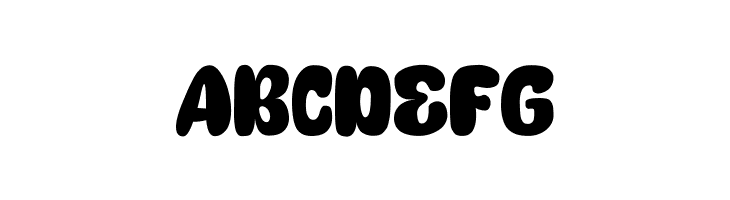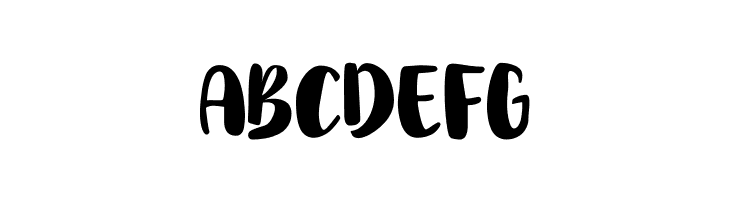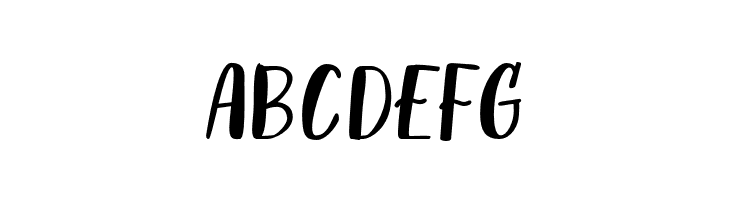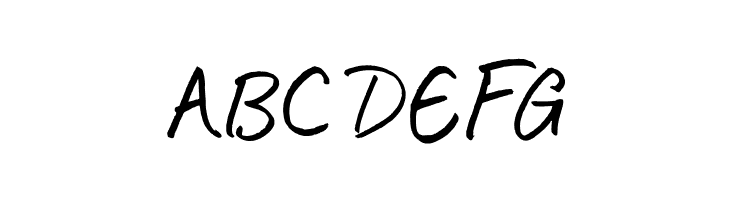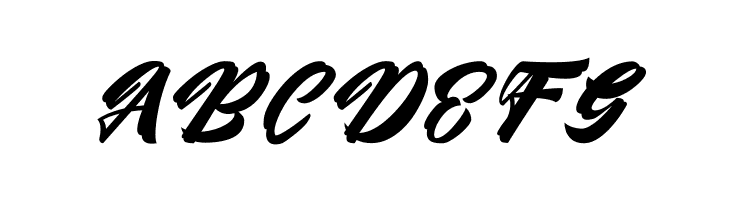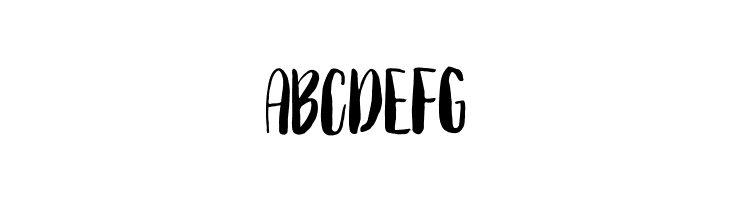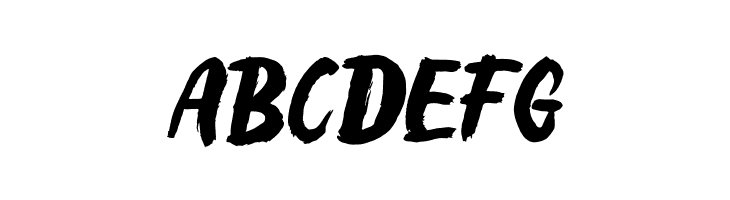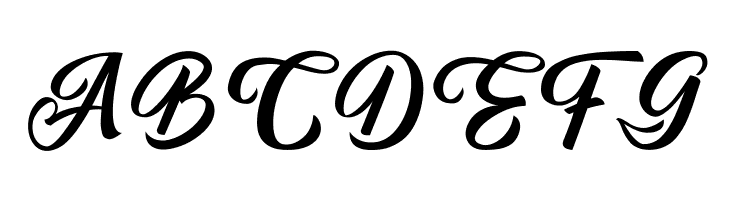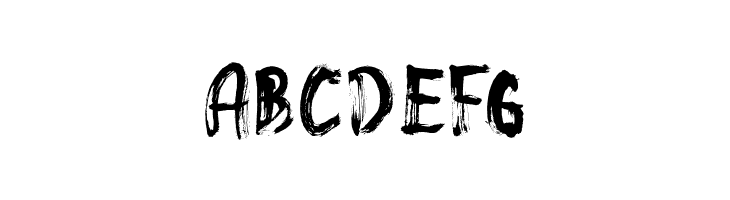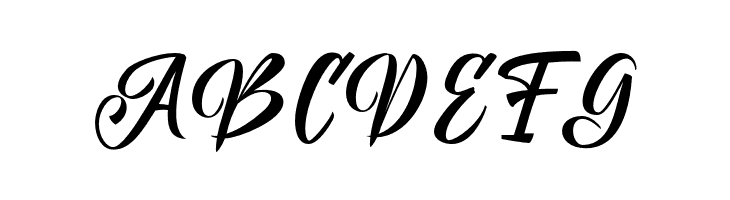
Susan Font
Font by Astageni Studio
A bold, brush-style font with a hand-painted, artistic appearance.
Bunny Funny Font
Font by Nur Solikh
A playful, bold, and rounded font with a whimsical style.
MoGa ReZeKi DuA Font
Font by Nur Solikh
A bold, playful font with dynamic characters and a strong presence.
Sunny Cloudy Two Font
Font by Nur Solikh
A bold, handwritten font with a playful and modern style.
Gembulla Font
Font by Nur Solikh
A bold, playful script font with a handwritten feel.
Janji Font
Astageni Studio - Nur Solikh - nursolikh.blogspot.com
A bold, geometric font with a strong, industrial style.
Sunny Cloudy One Font
Font by Nur Solikh
A bold, playful script font with fluid, connected characters and elegant curves.
Megalia Font
Flamde Studio - Nur Solikh - creativemarket.com/flamde/
A bold and expressive script font with flowing, connected letterforms and high contrast.
Vervelle Script Font
A bold, elegant script font with fluid connections and high contrast.
Lariess Font
Flamde Studio - Nur Solikh - creativemarket.com/flamde/
A bold, hand-painted style font with expressive, uneven strokes.
Little Merry Font
Font by Nur Solikh
A playful, bold font with rounded, bubbly characters ideal for fun and informal designs.
Quillotha Font
Flamde Studio - Nur Solikh - creativemarket.com/flamde/
A bold, expressive script font with flowing, connected letterforms.
Funny Gang Font
Font by Nur Solikh
A playful and bold font with whimsical curves and a lively personality.
Fuister Font
Flamde Studio - Nur Solikh - creativemarket.com/flamde/